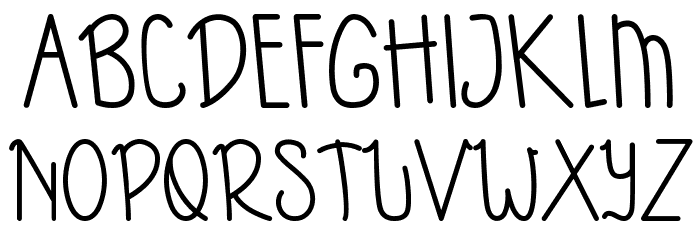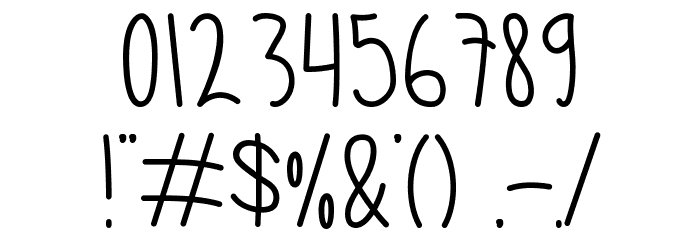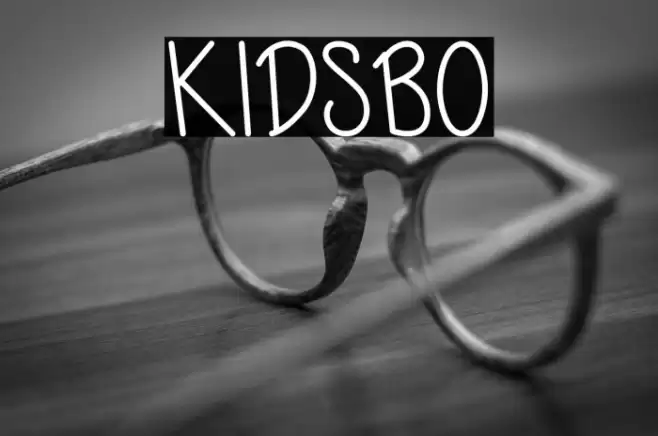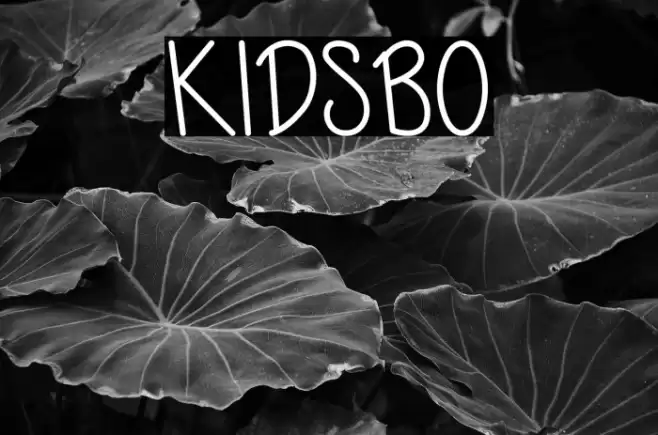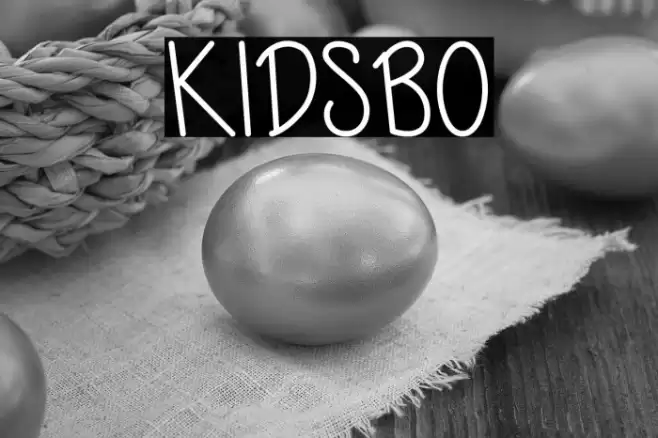
KIDSBO Font
This playful and whimsical font features tall, narrow letters with a hand-drawn aesthetic. The strokes are consistent in width, giving it a uniform appearance, while the slightly irregular shapes add a touch of charm and personality. The uppercase and lowercase letters maintain a cohesive style, with rounded edges and a casual feel. Numbers and special characters are designed to match the overall playful theme, making this font suitable for creative and informal projects. Its simplicity and readability make it versatile for various uses.
A playful, hand-drawn font with tall, narrow letters and a whimsical style.
- Proposed Projects: Ideal for children's books, playful branding, greeting cards, and creative posters.
- Overall Style: Playful